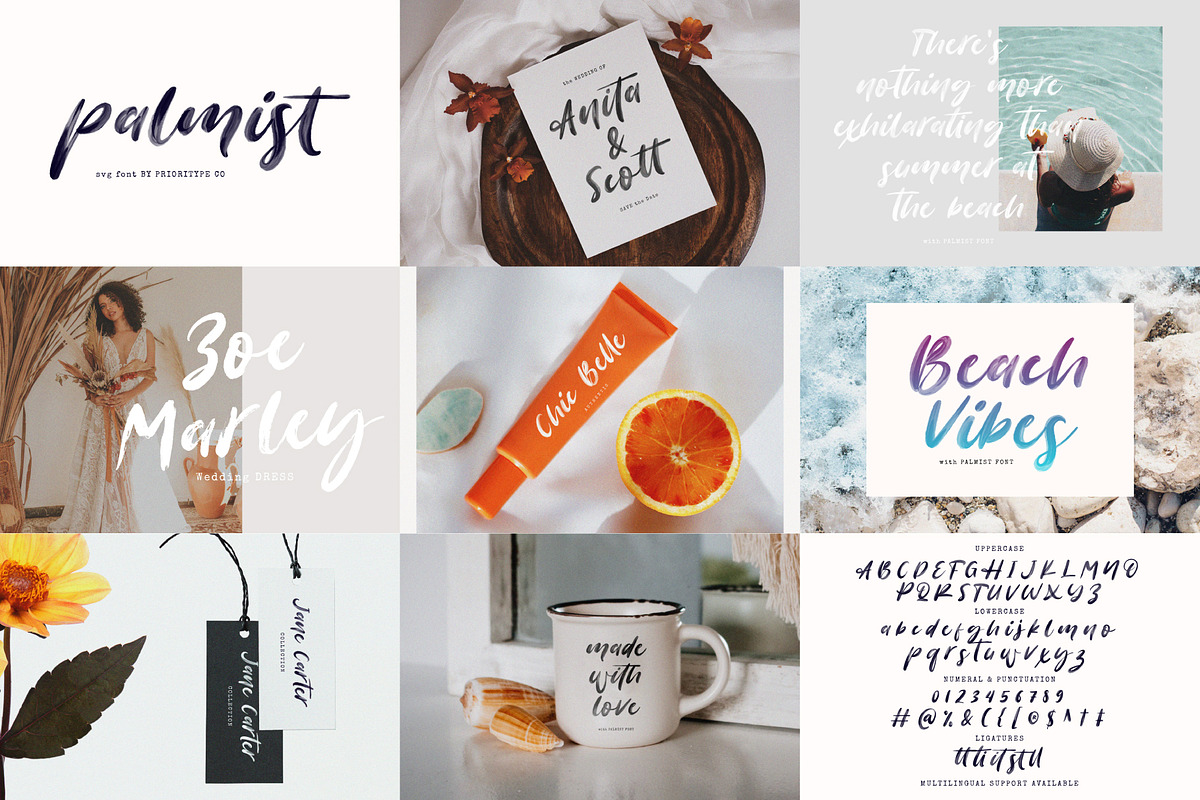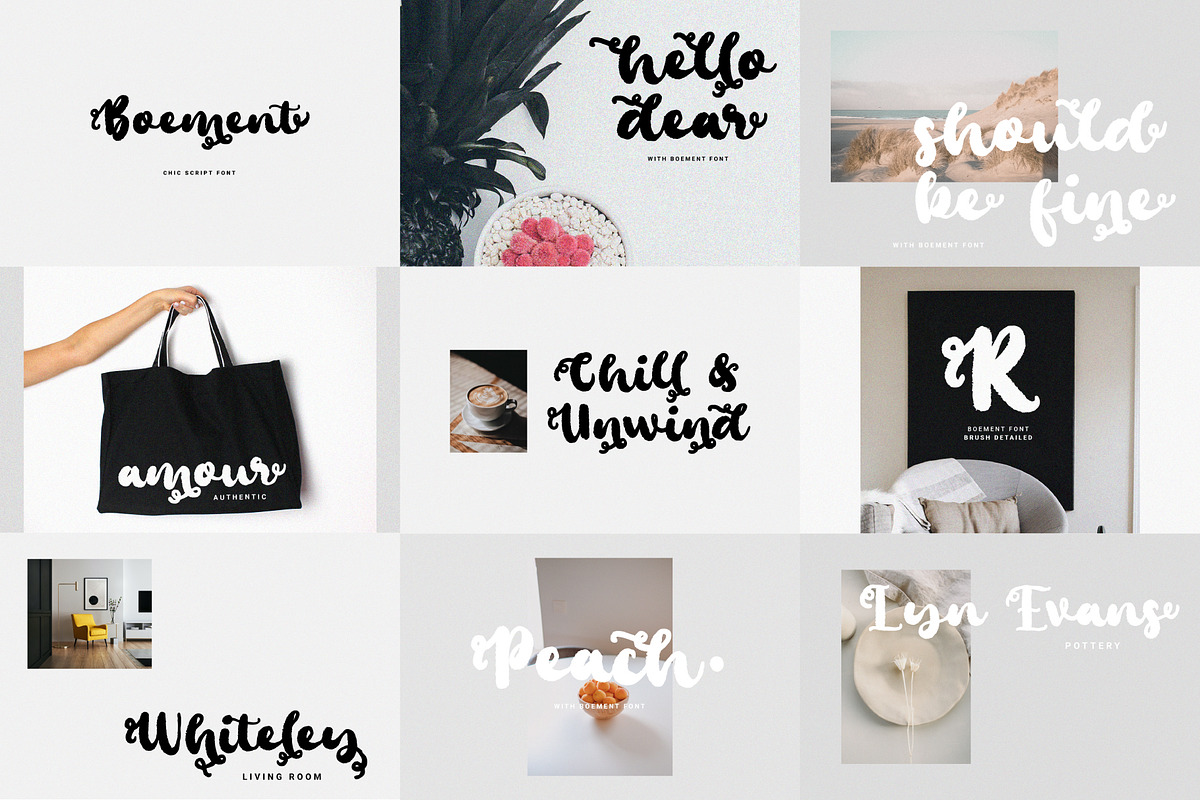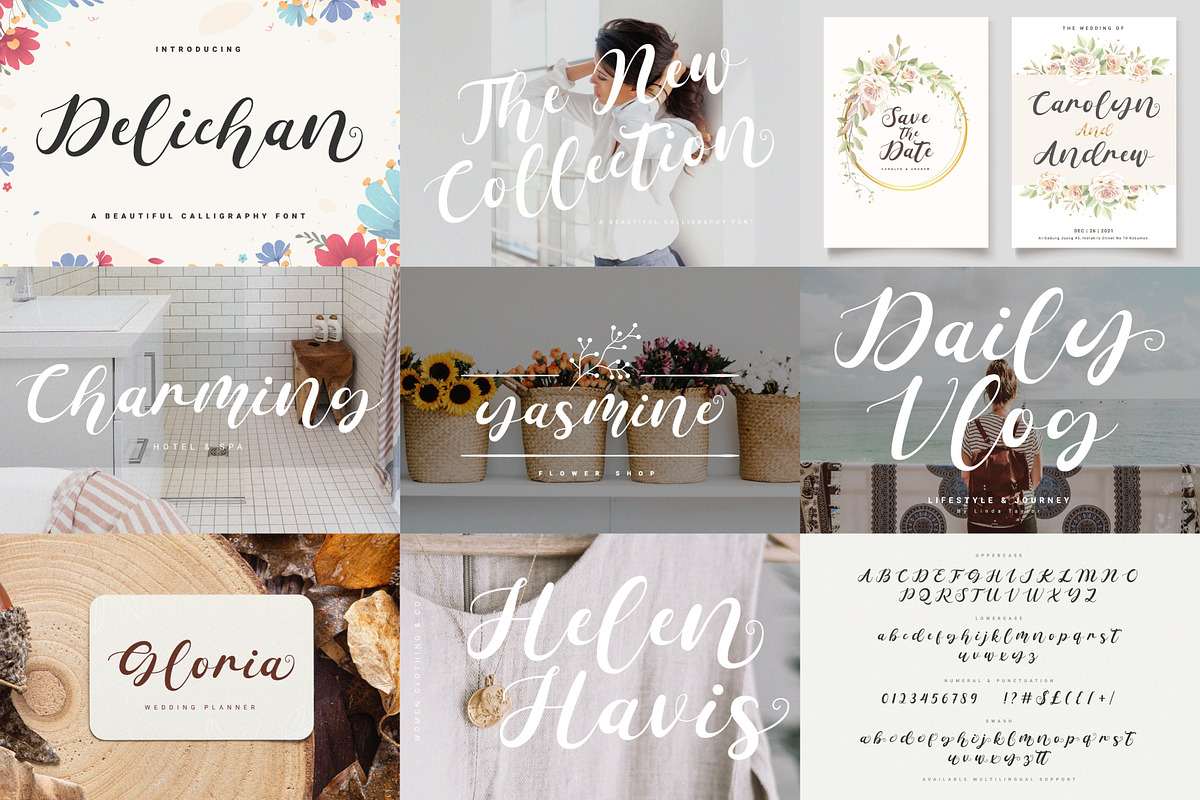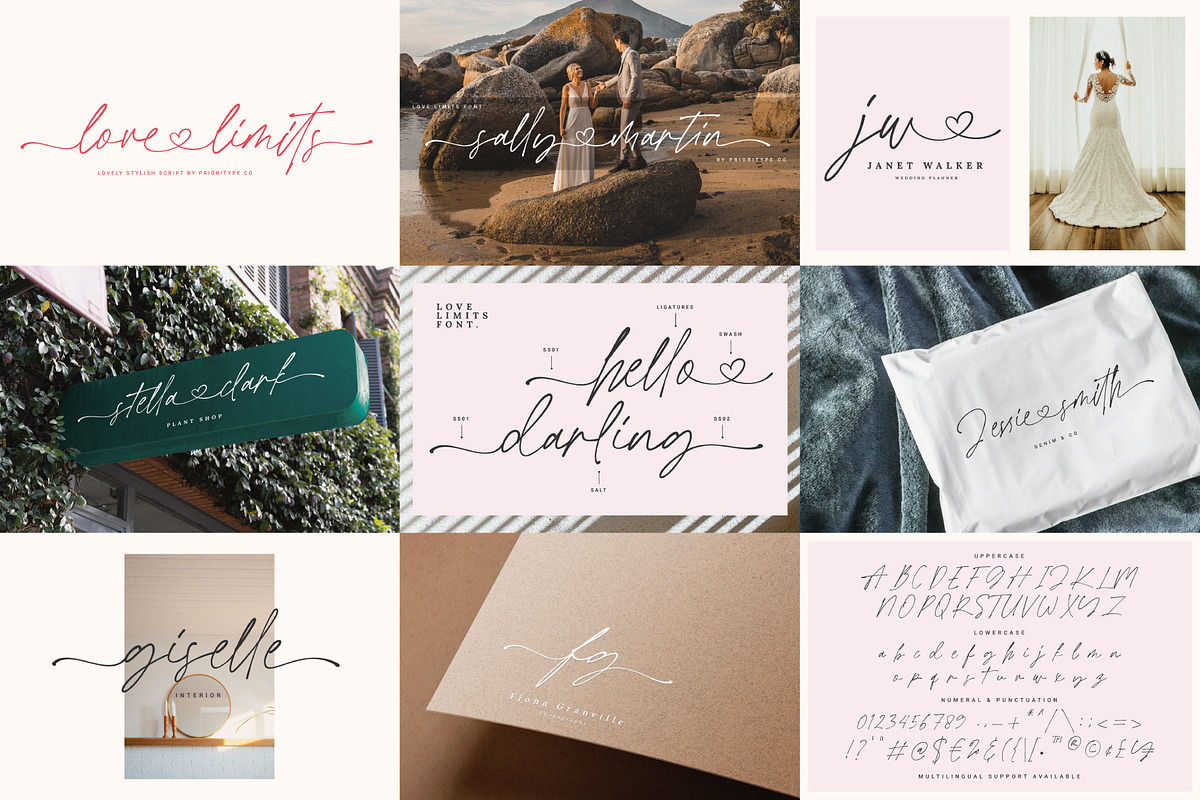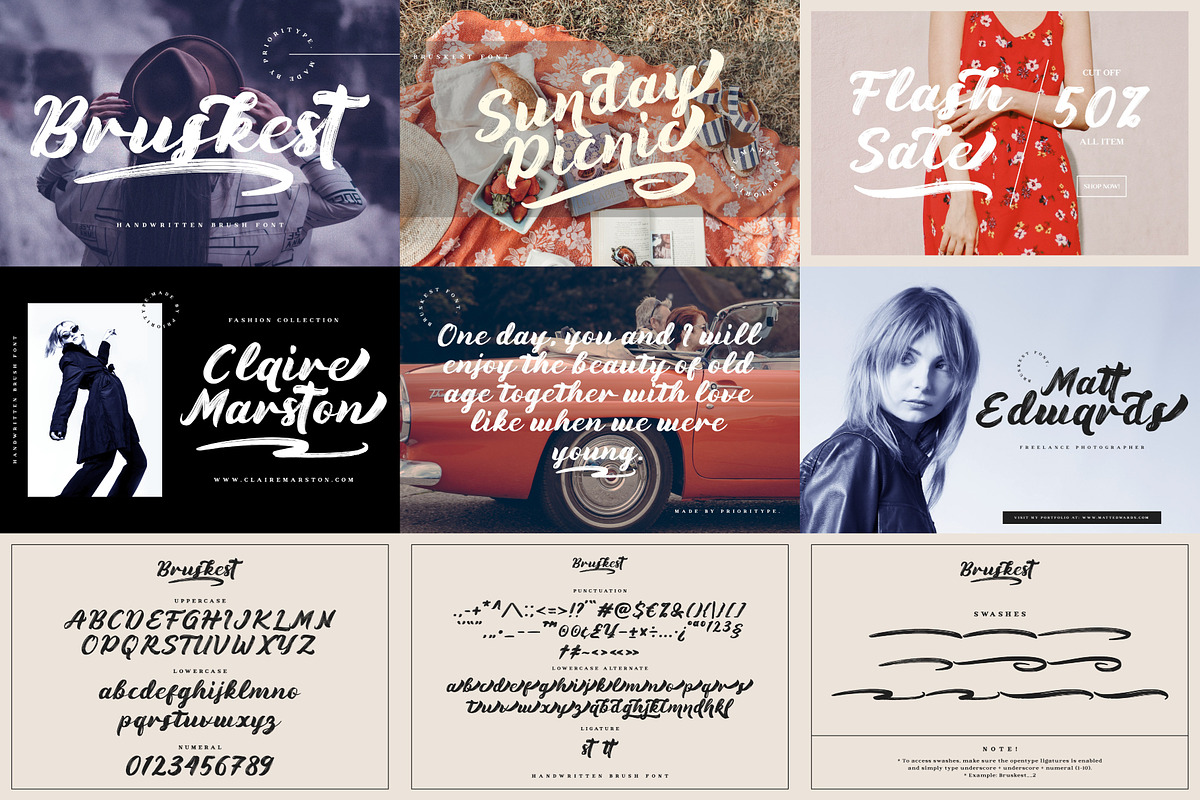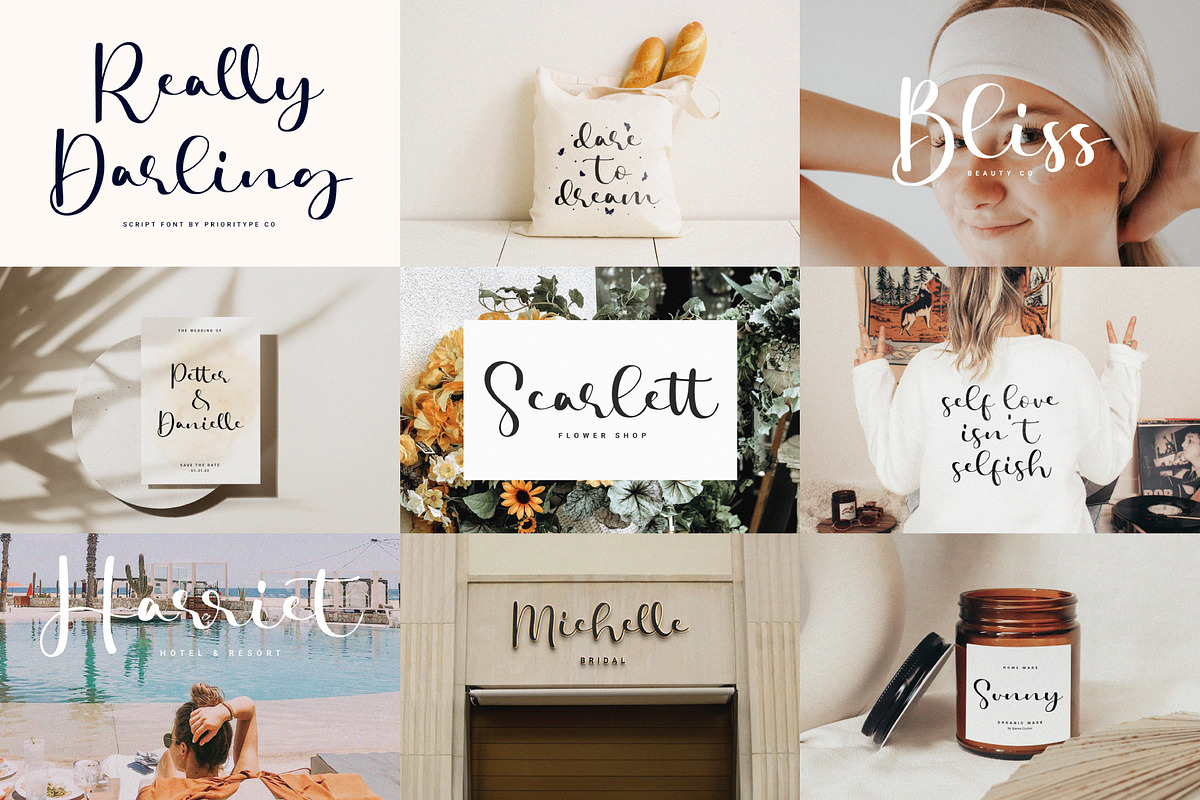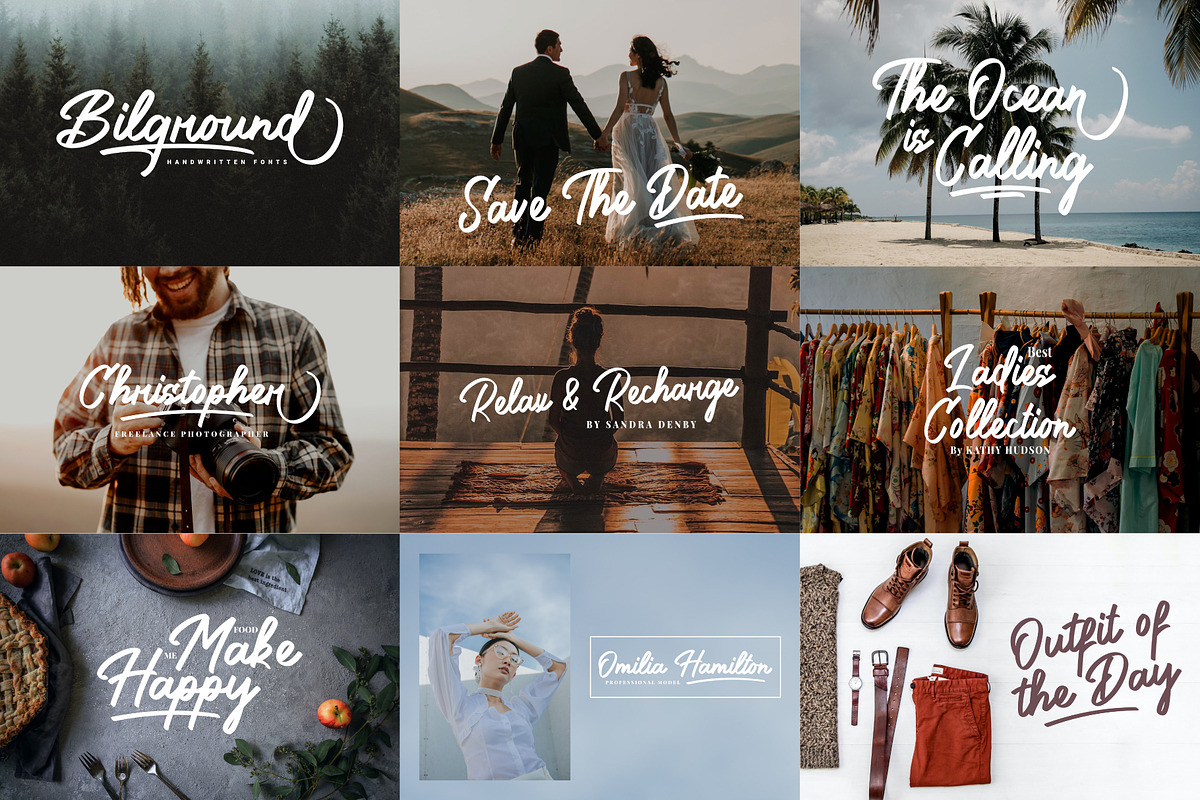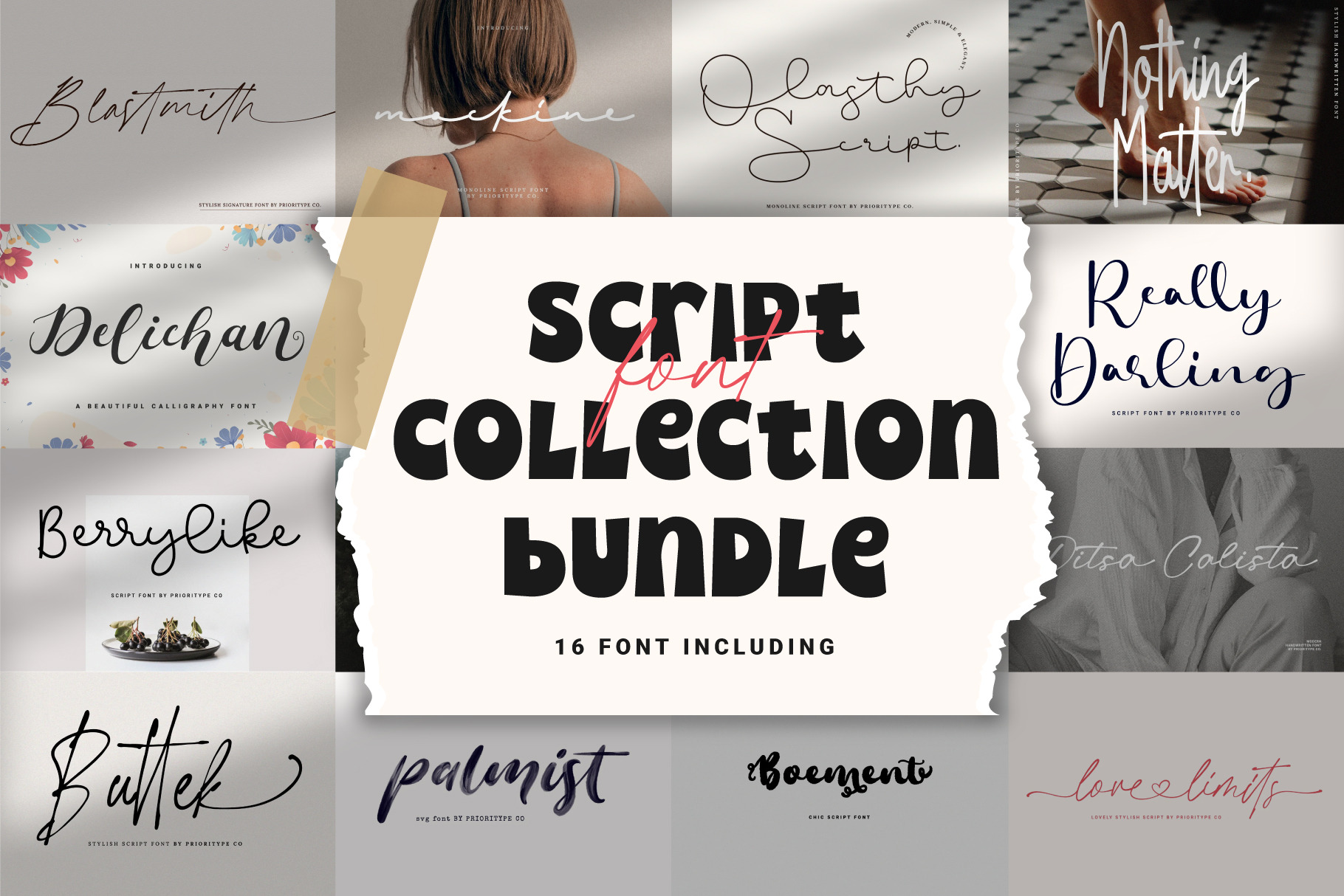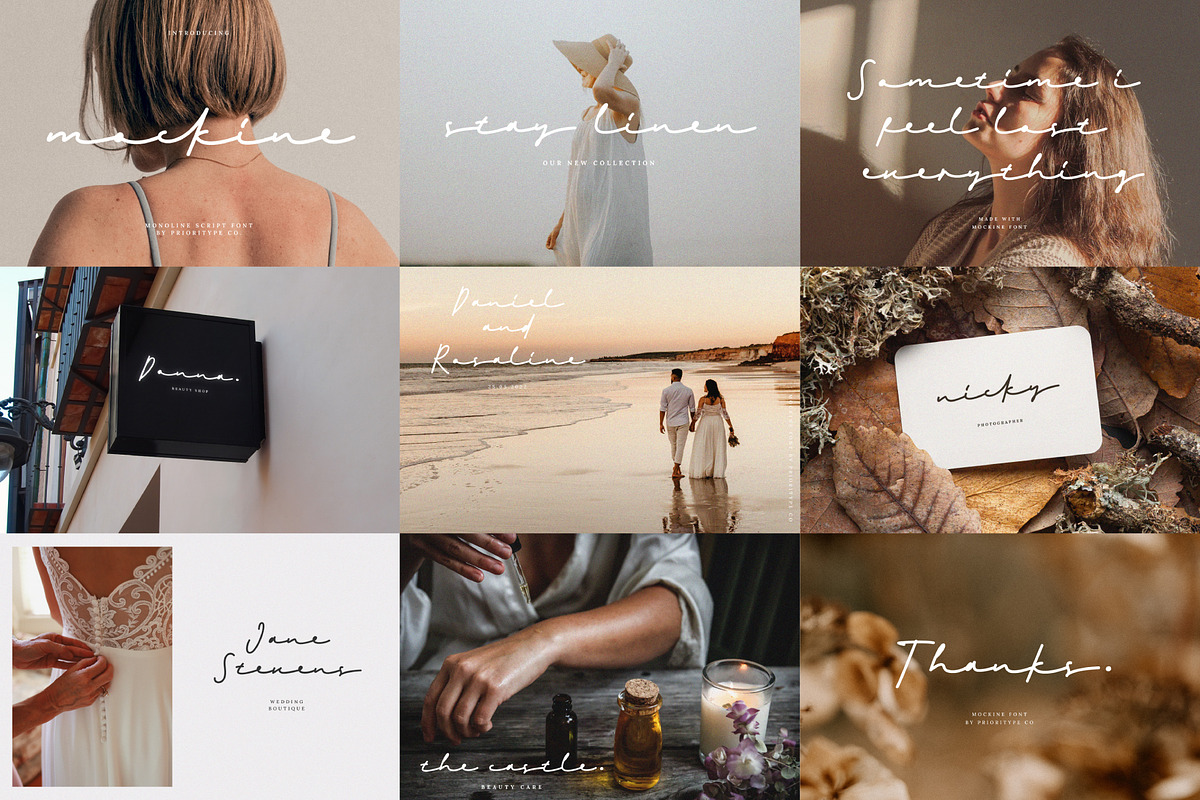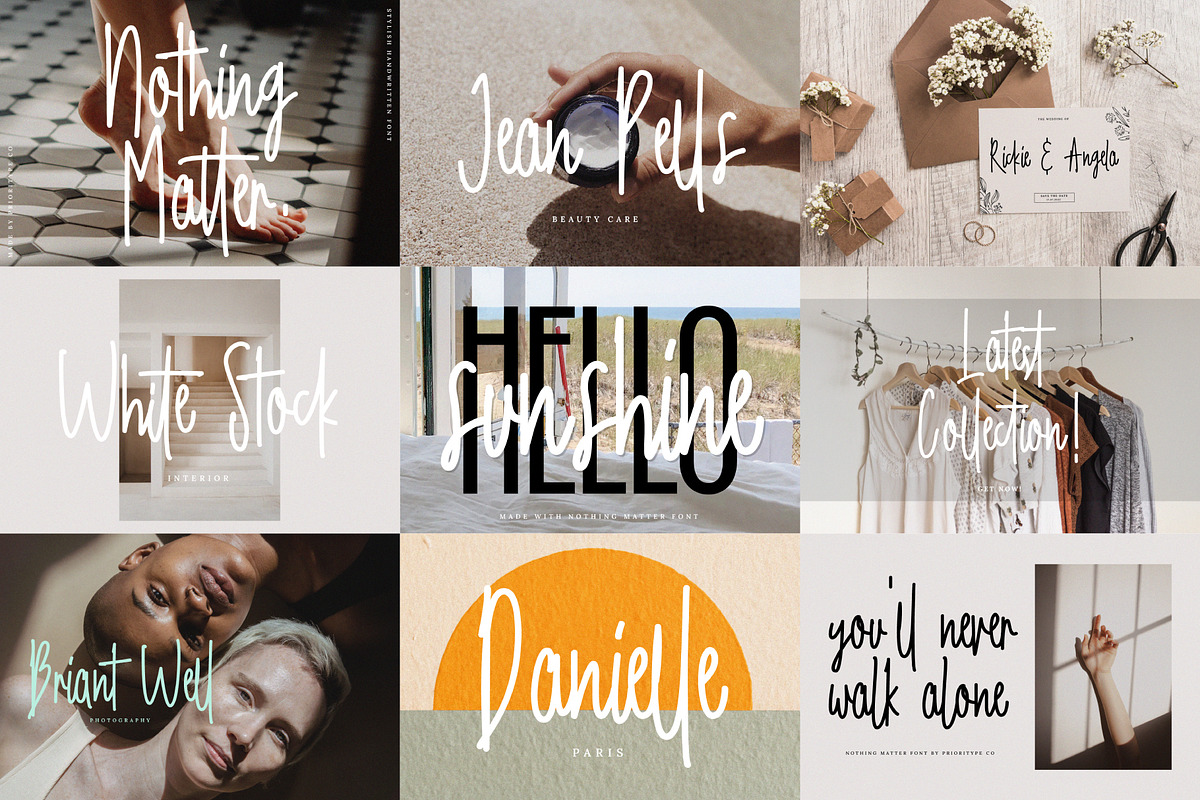
Script Font Collection Bundle
Script Font Collection Bundle by Prioritype Co.
There are 16 collections of beautiful, luxurious and awesome script fonts. Perfect for branding designs, logos, wedding invitations, social media posts, quotes etc.
Font Including: